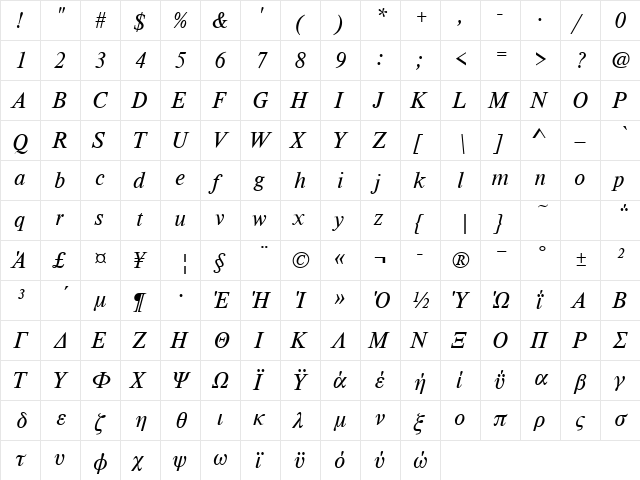
TimelessTGRLig Italic
Design Context for TimelessTGRLig Typeface
TimelessTGRLig takes a measured approach to typography — its balanced proportions and neutral character make it a reliable workhorse for both digital and print work. Its italic angle brings a sense of urgency and motion to the letterforms.